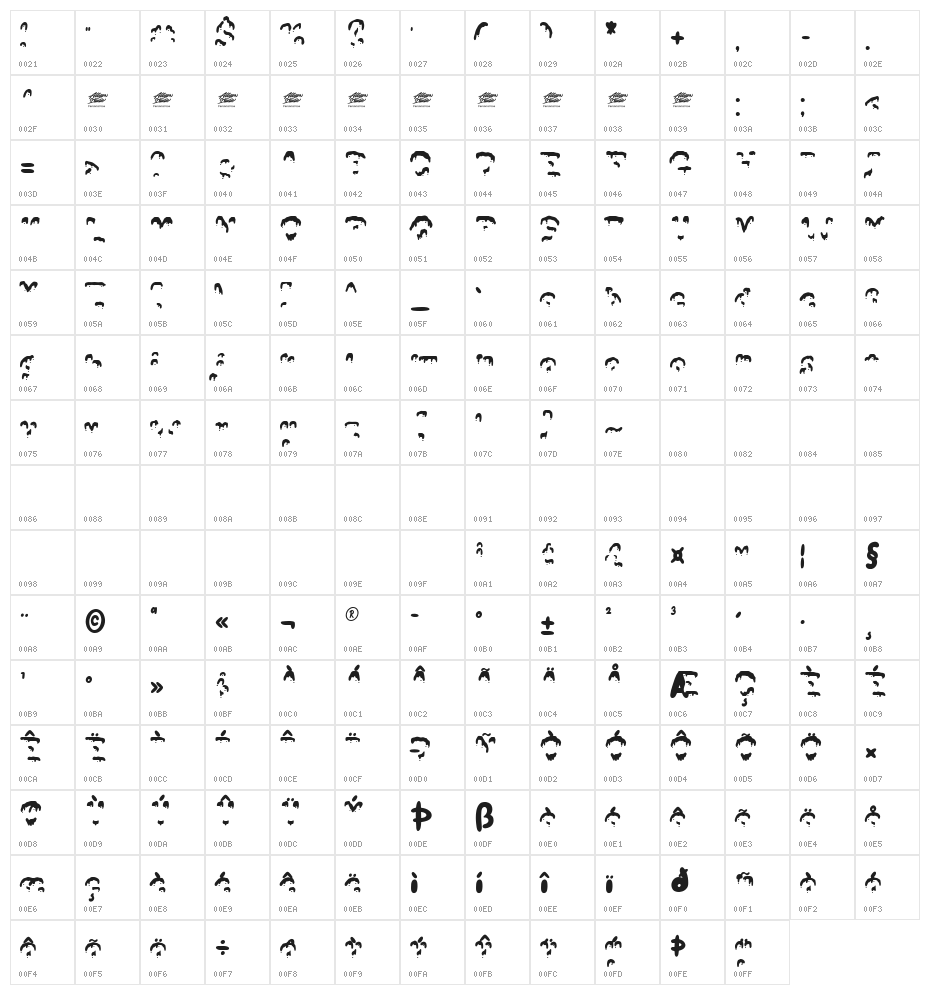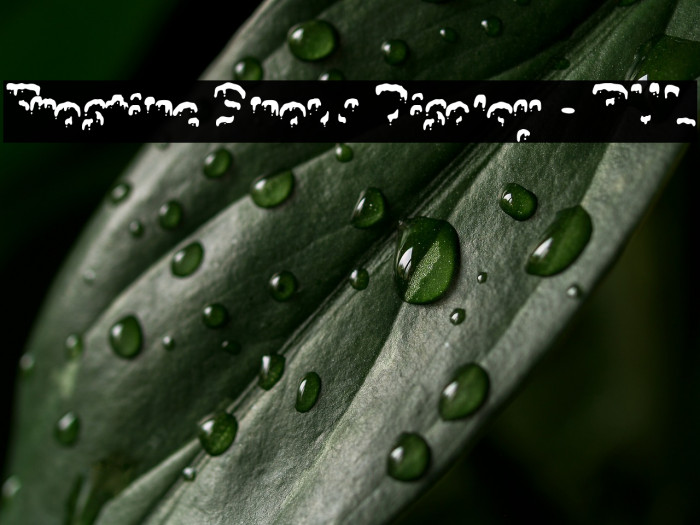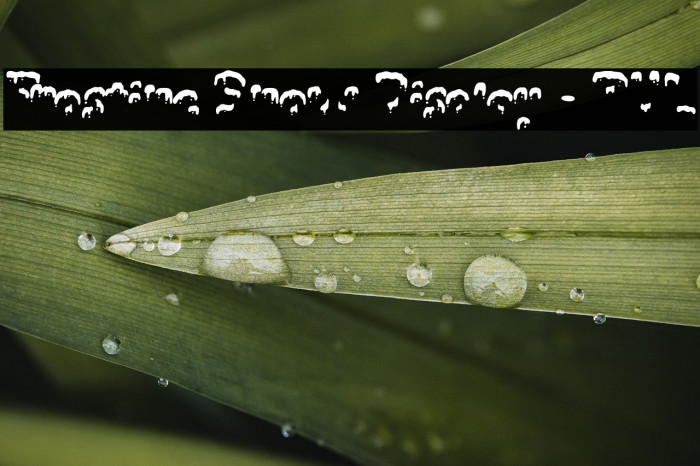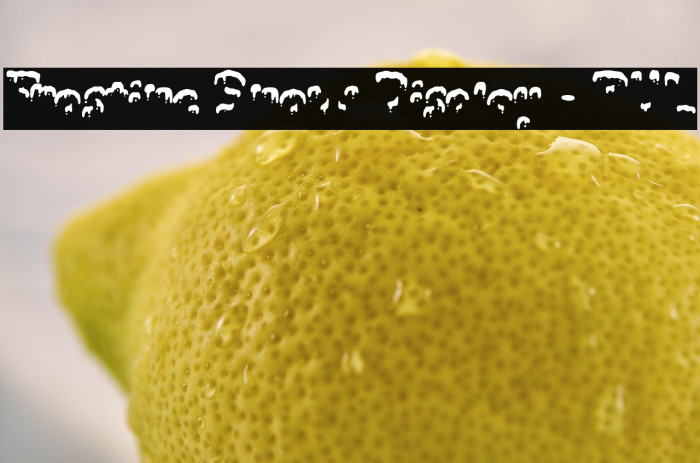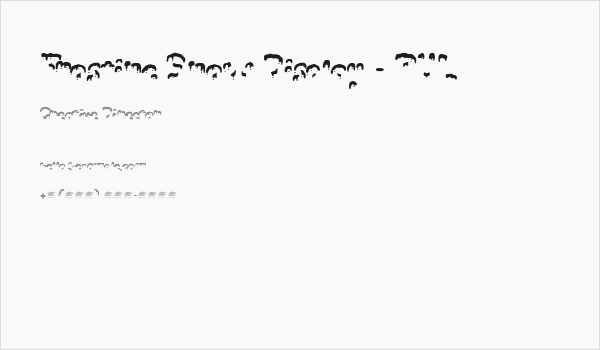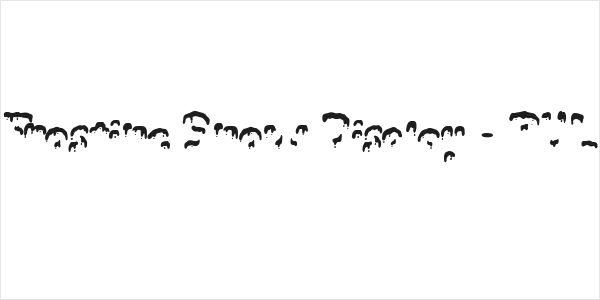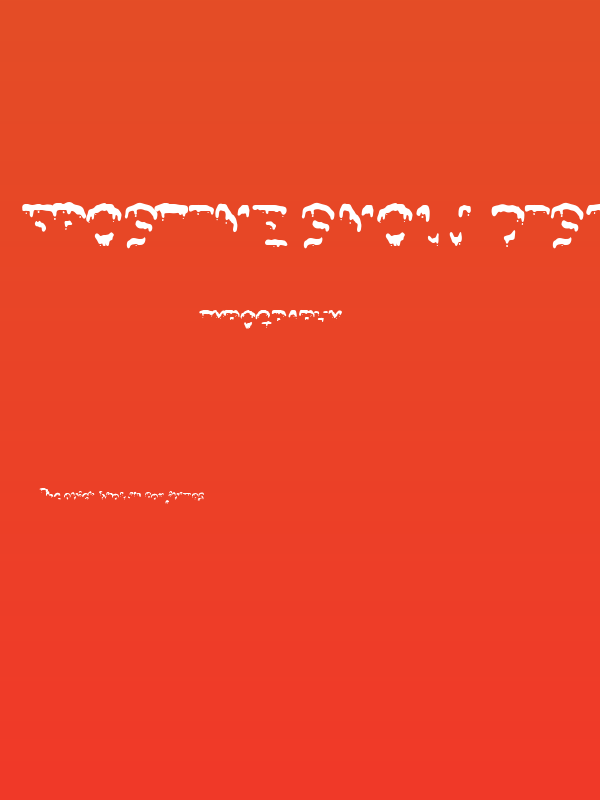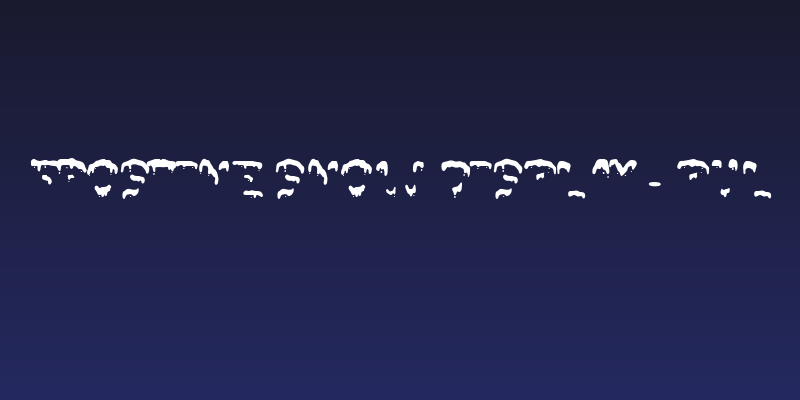
Frostine Snow Display - PUL Font
Frostine Snow Display - PUL Description
This font features a playful and whimsical design, reminiscent of melting snow or dripping paint. The characters have a unique, irregular outline that gives them a dynamic and fluid appearance. Each letter is adorned with drips and splatters, creating a sense of movement and fun. The font maintains legibility while offering a decorative and eye-catching style, making it suitable for creative and festive projects. Its bold and artistic nature makes it stand out, ideal for designs that require a touch of whimsy and creativity.
| Proposed Projects | Ideal for holiday cards, winter-themed posters, children's book covers, and playful branding. |